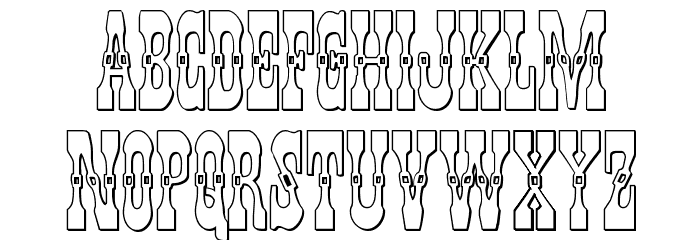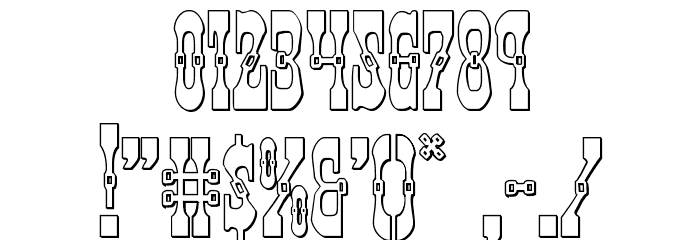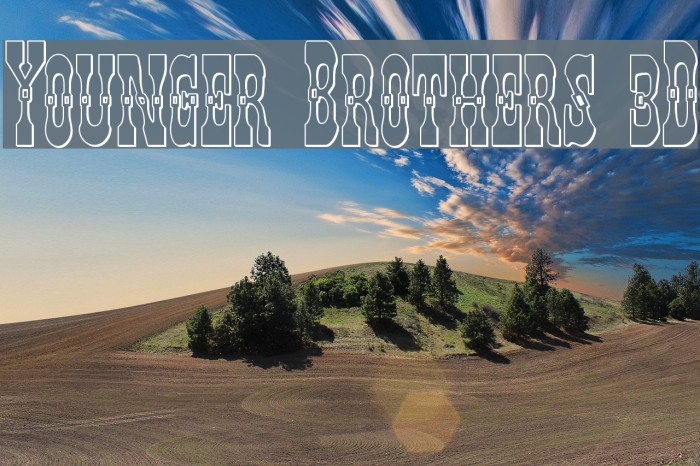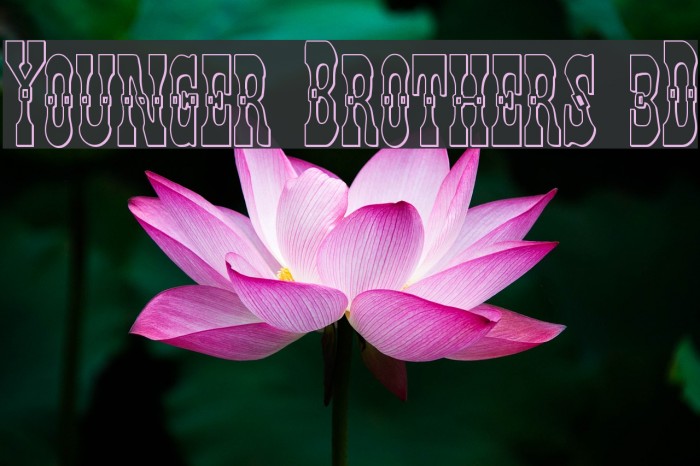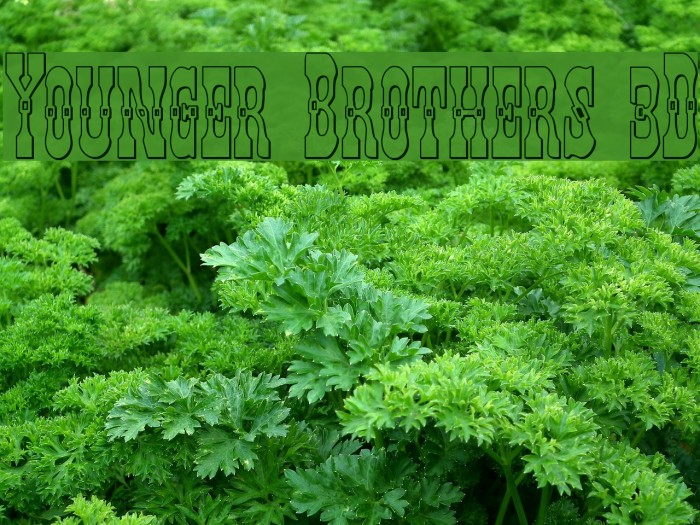
Younger Brothers 3D Font
This font features a bold, three-dimensional outline style that gives each character a striking, blocky appearance. The letters are uppercase and have a playful, geometric design with a consistent thickness throughout. The font includes a full set of uppercase letters, numbers, and a variety of special characters. Its unique style is characterized by a hollow interior and a thick border, creating a sense of depth and dimension. The characters are evenly spaced, ensuring readability while maintaining a decorative flair. This font is ideal for projects that require a bold and eye-catching aesthetic.
A bold, 3D outline font with a geometric and playful design.
- Proposed Projects: Great for posters, headlines, logos, and any design needing a bold, eye-catching font.